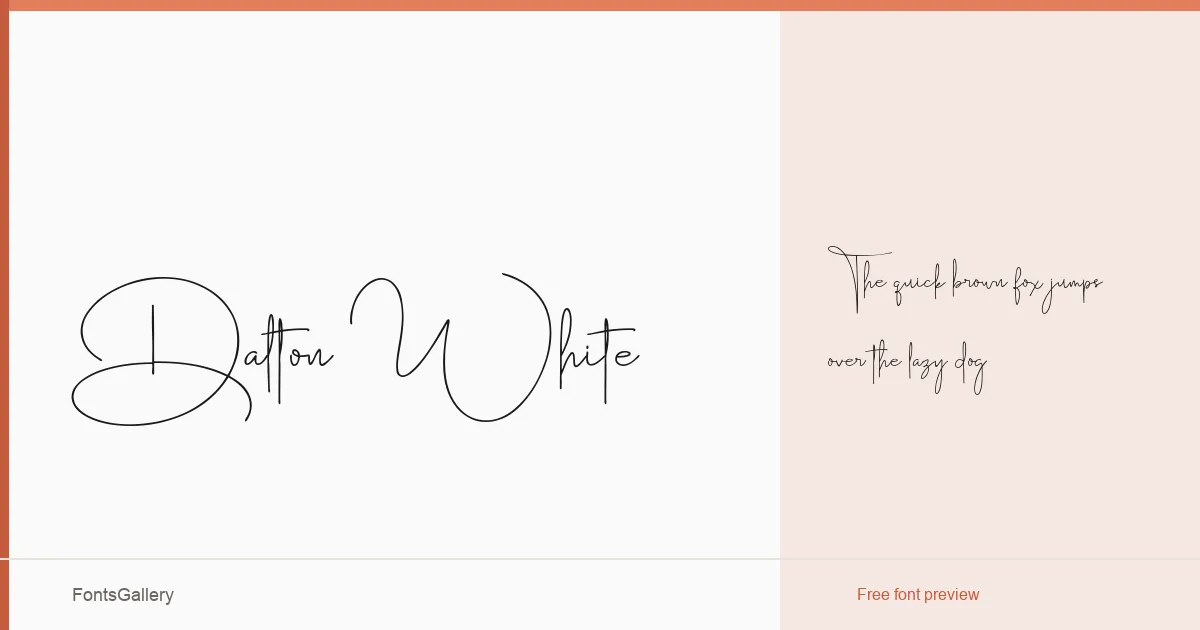
About Dalton White Font
Dalton White is an elegant script typeface crafted by Madhaline Studio 2020, designed to evoke a sense of luxury, romance, and timeless sophistication. Its flowing letterforms make it a distinguished choice for projects that demand a refined and classic aesthetic. This typeface carries a graceful charm that resonates beautifully across a wide range of upscale creative applications.
Dalton White features the fluid, sweeping strokes characteristic of classic script typography, lending each letterform an air of romantic elegance and luxury. The carefully crafted connections between characters create a natural, graceful rhythm that feels both sophisticated and warmly personal. Its classic sensibility ensures it remains visually striking without sacrificing readability or refinement.
Dalton White is ideally suited for logos, branding projects, wedding stationery, invitation cards, and greeting cards where an elevated, romantic tone is desired. Its luxurious character makes it especially compelling for high-end packaging, boutique identity design, and celebratory print materials. For a balanced typographic pairing, consider combining Dalton White with Aresink for a cohesive elegant feel, or with Helvetica to create a striking contrast between ornate script and clean sans-serif simplicity.